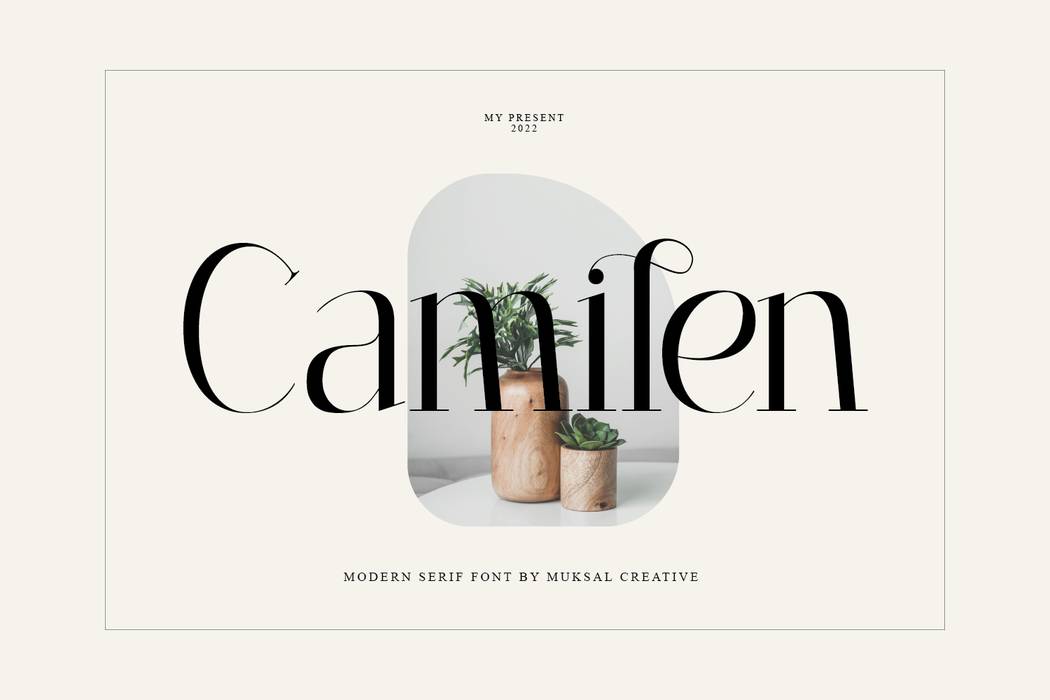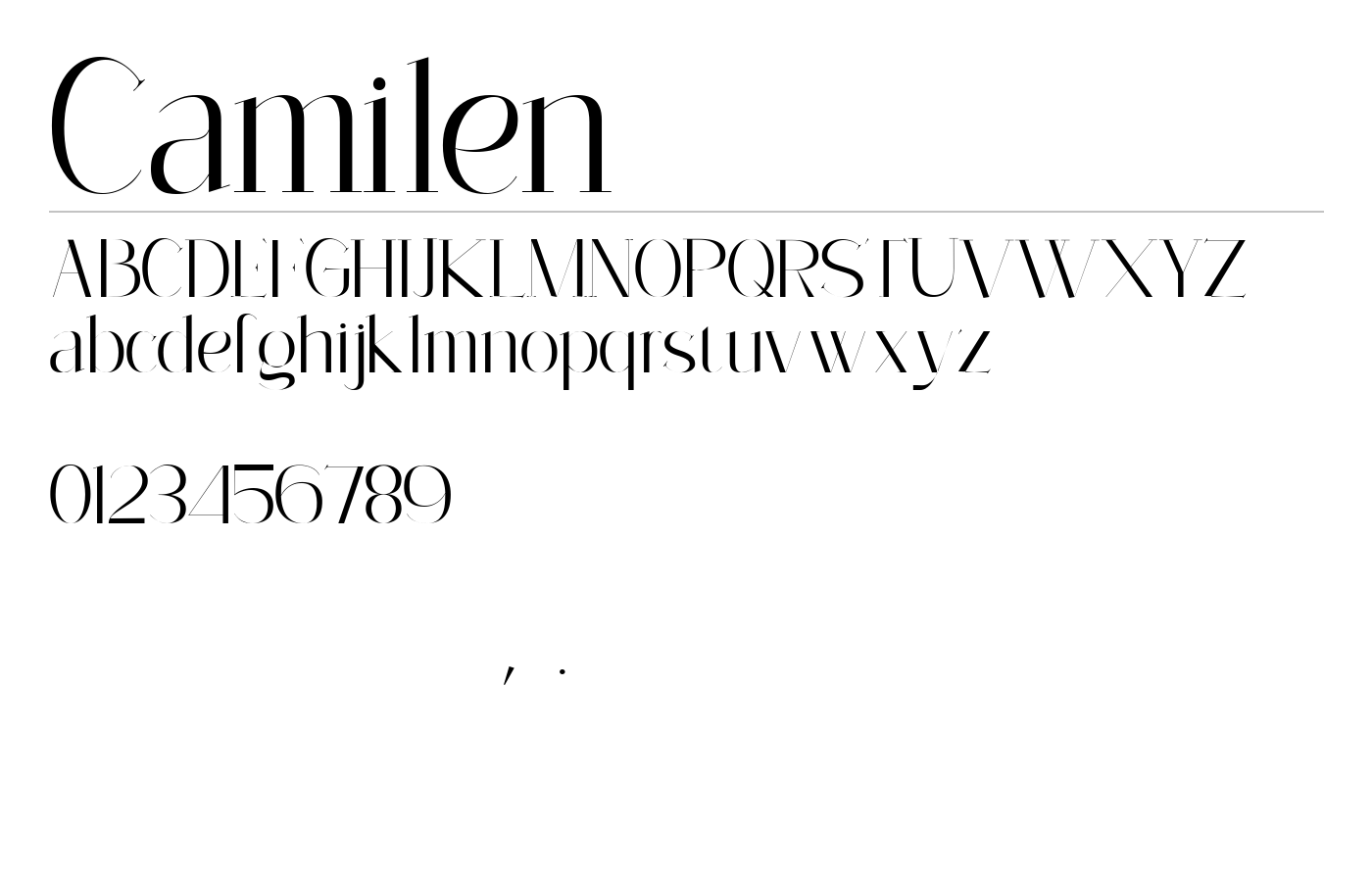
Camilen is an elegant serif font featuring a high contrast between thin and thick strokes, with delicate, refined letterforms that convey sophistication and luxury. Its tall, narrow proportions and graceful curves make it perfect for upscale branding, editorial headlines, and fashion-related designs where a stylish and modern yet timeless appearance is desired. This font’s thin serifs and unique character details create a striking, artistic feel that enhances high-end visual communication.
Camilen Font